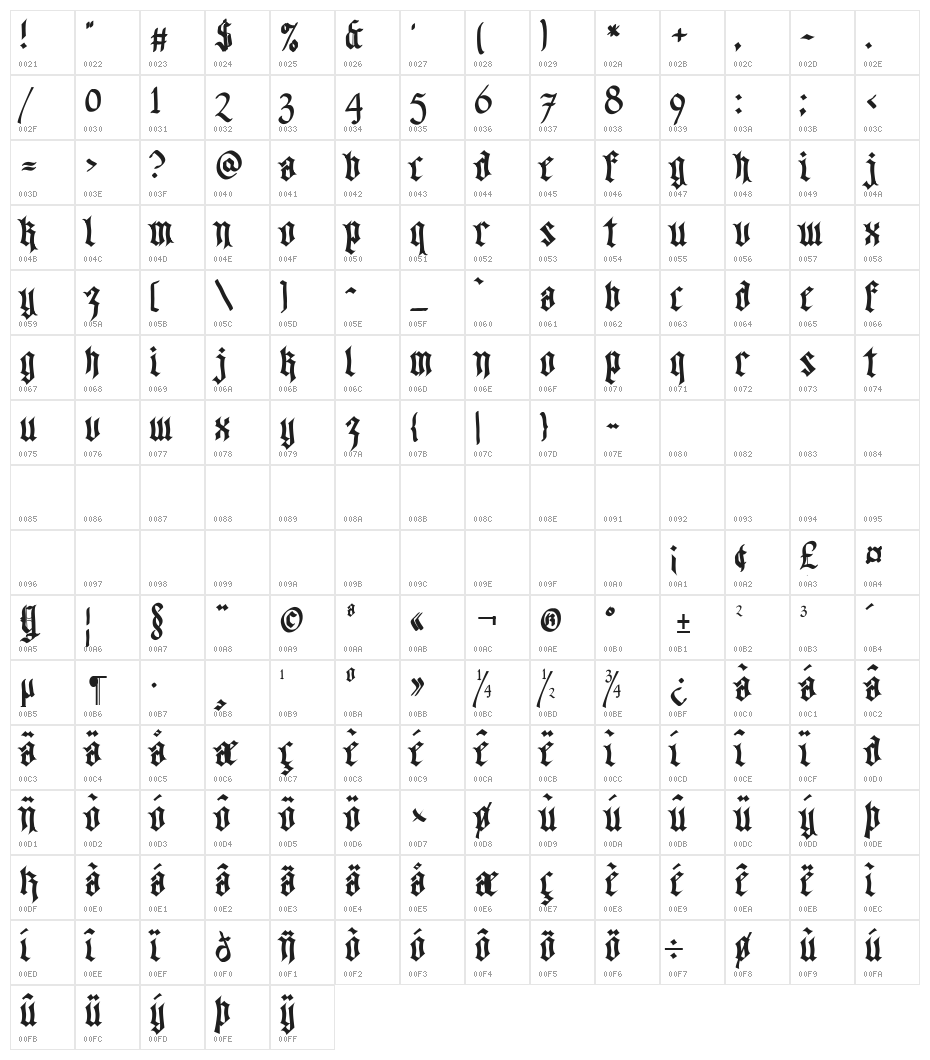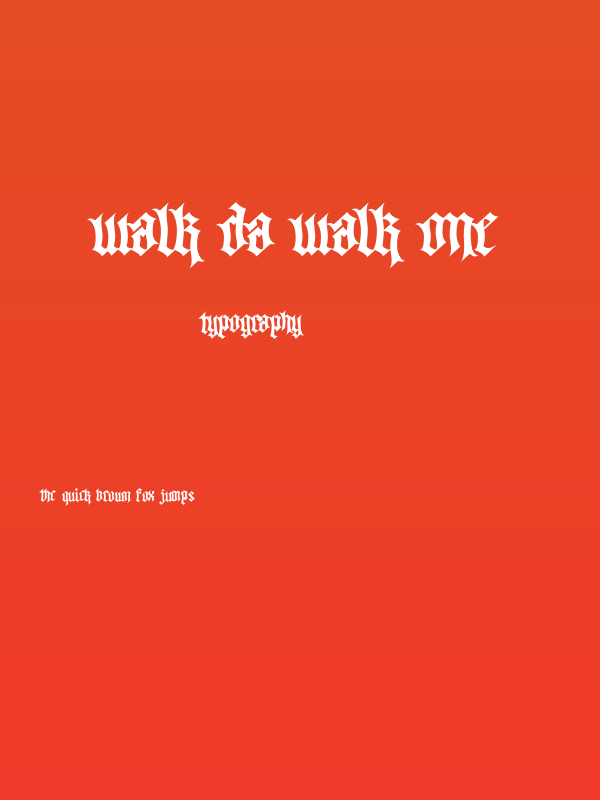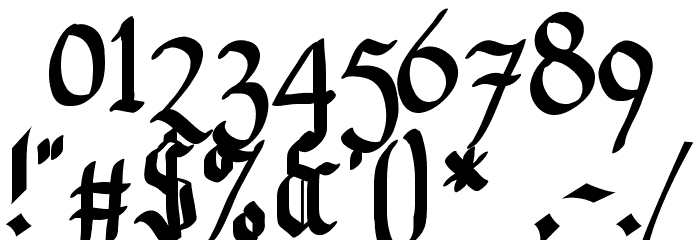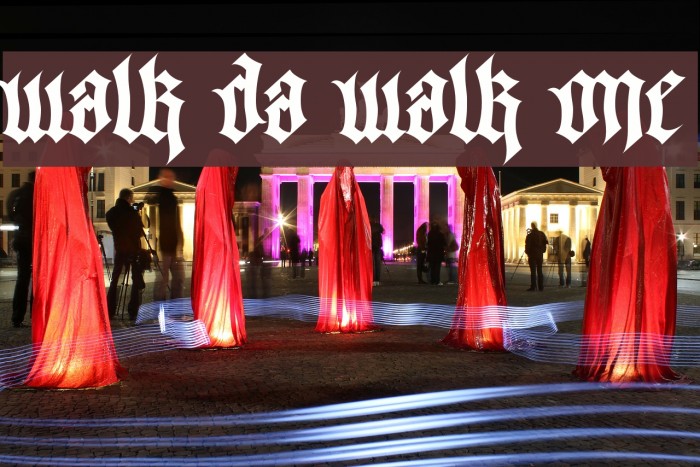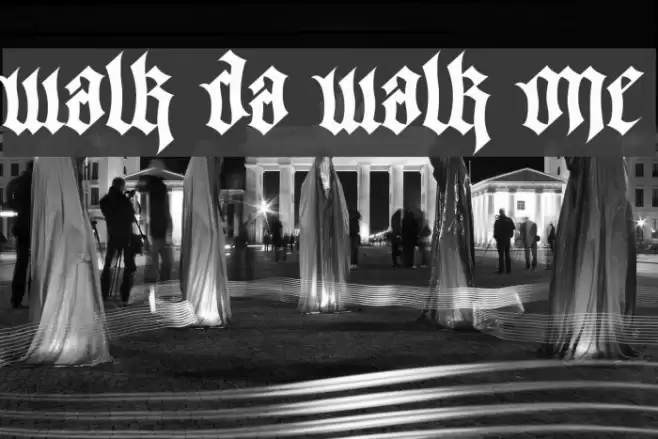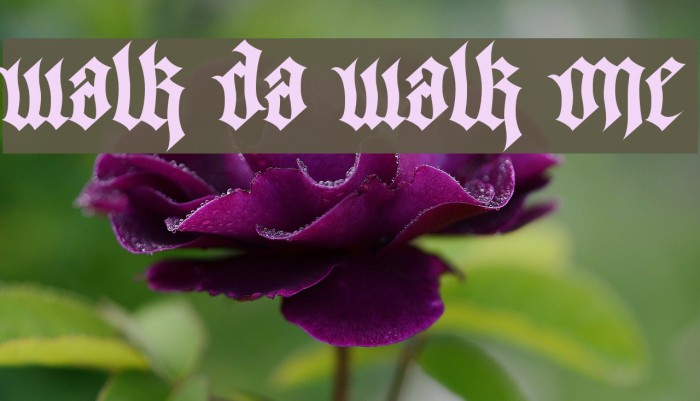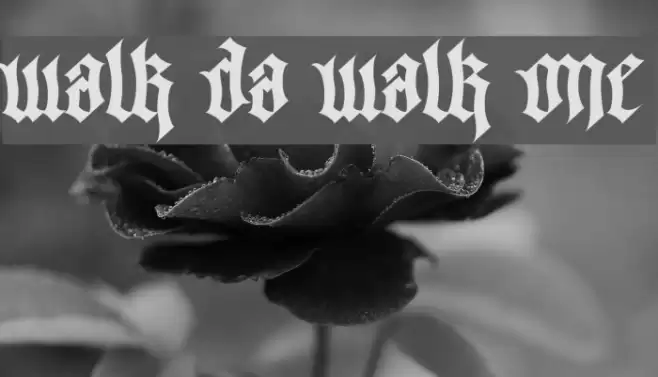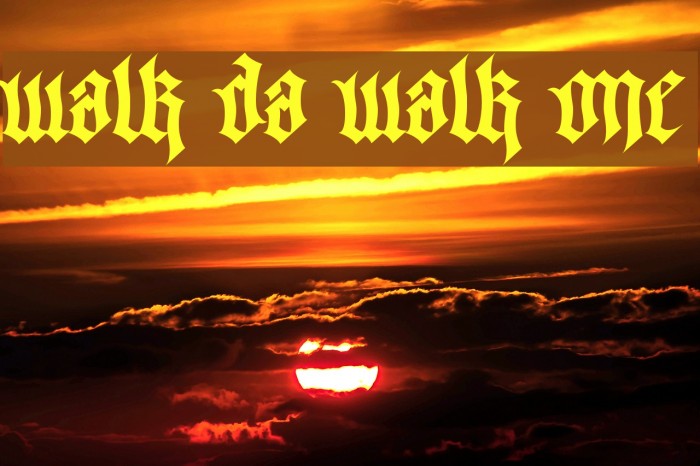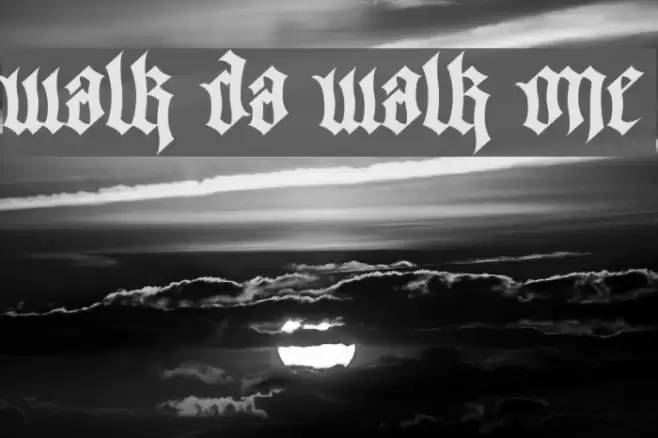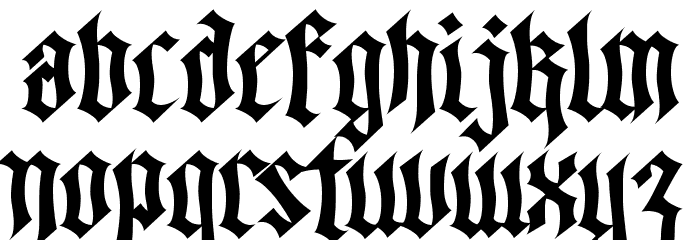
Walk Da Walk One Font
Walk Da Walk One Description
This font features a bold and dramatic style reminiscent of traditional Blackletter typefaces. It showcases sharp, angular lines and intricate detailing, giving it a gothic and medieval appearance. The uppercase and lowercase letters maintain a consistent style, with elaborate serifs and a strong vertical emphasis. The numerals and special characters are equally ornate, contributing to the overall cohesive look. This font is ideal for projects that require a historical or formal aesthetic, such as certificates, invitations, or branding for luxury products.
| Overall Style | Gothic, Medieval |
| Use Case | Headlines, Logos, Decorative text |
| Proposed Projects | Ideal for certificates, formal invitations, luxury branding, and historical themed designs. |